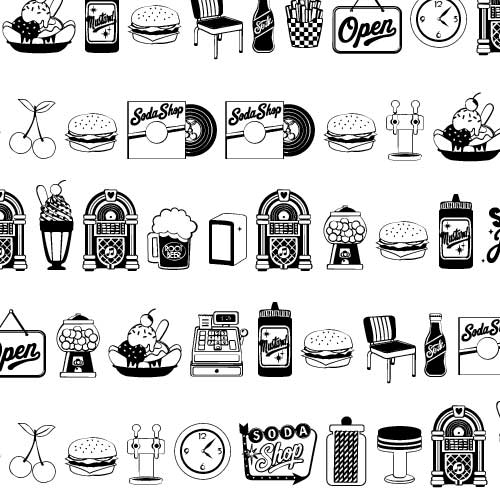
DB Soda Shop - DB
This fun doodlebat font features 26 retro style soda shop elements perfect for cards, crafts, gifts, planner stickers, scrapbook pages, parties, decor and more!